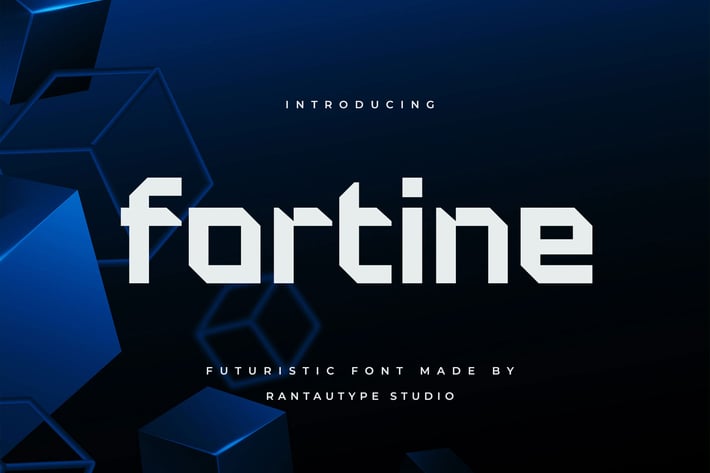
Fortine Futuristic Font
Fortine is futuristic font made by rantautype studio. Fortine is inspire from a cube and futuristic visual design with unique form. Fortine come with strong shape to make different visual design and attractive. With fortine bring you another world about
technology era.
Fortine is a perfectly choice for any creative endeavor such as logos, advertisements, stationery, branding project, display and magazine, invitation, headline, corporate brand, product design, label, business project and many other project with old futuristic touch.